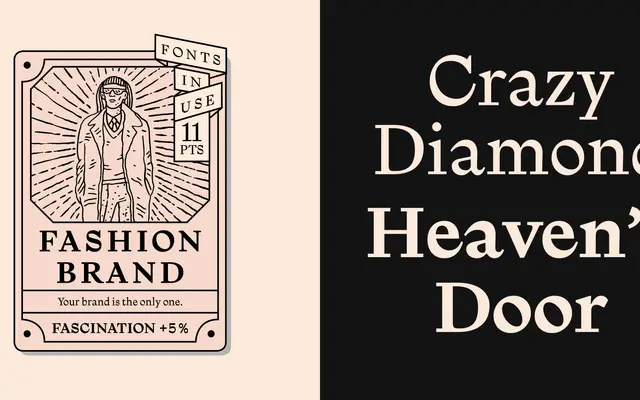
A text serif with an exaggerated stress axis and unbalanced exit strokes, designed to produce a lively texture at body sizes while offering a condensed display cut for larger settings.
Originally released on Future Fonts under the code name TXT25 before launching as NaN Tragedy on NaN.xyz, this family attempts to bring display-style design decisions into a workhorse text typeface. Graphic shapes in round letters and desequilibrated exit strokes give it a distinctive rhythm that reads quietly at small sizes but shows its character on closer inspection. A Display cut amplifies these unconventional features in a more condensed width for use at larger sizes.
Described as a functional text typeface with exaggerated axis and unconventional stroke exits, placing it within the transitional serif tradition but pushed toward display expressiveness.